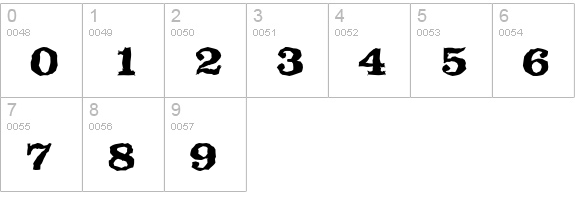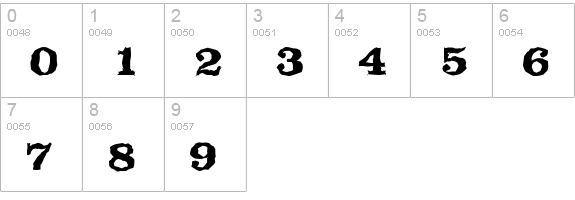
ClareRandom-Xbold Font Details
Introducing ClareRandom-Xbold font, a bold and eye-catching typeface designed to make a statement in any design project. This versatile font features a unique and random appearance, adding a touch of creativity and personality to your work. Whether you're designing posters, logos, or branding materials, ClareRandom-Xbold is sure to grab attention and leave a lasting impression. What's more, ClareRandom-Xbold font is available for free download at FontsMarket.com, making it accessible to designers and creatives looking to add a fresh and modern touch to their projects. Don't miss out on the opportunity to enhance your designs with this stunning typeface that combines boldness with a touch of randomness. Download ClareRandom-Xbold today and elevate your design game to the next level!